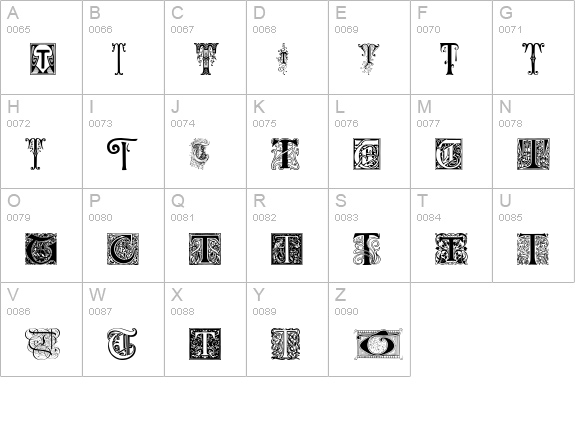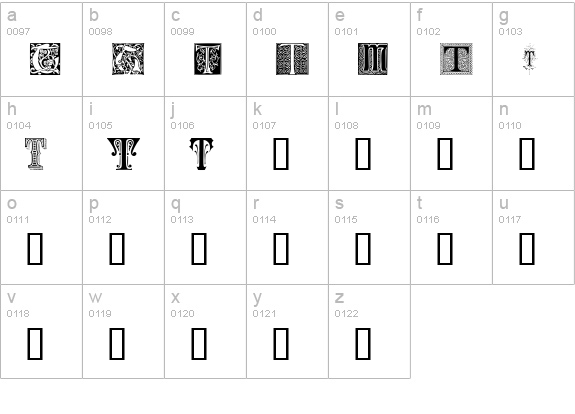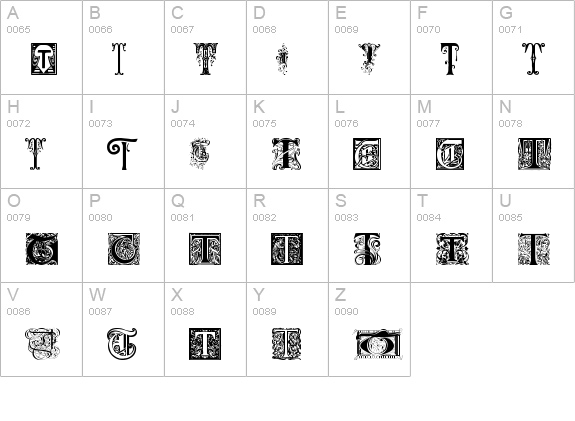
Ornamental Initials T font is a stunning typeface that exudes elegance and sophistication. With intricate details and ornate designs, this font is perfect for adding a touch of glamour to your projects. The elaborate initials make a bold statement and can elevate any design to new heights. Whether you're working on invitations, branding, or other creative projects, Ornamental Initials T font is sure to make a lasting impression. Best of all, Ornamental Initials T font is completely free to download at FontsMarket.com. This means you can access this beautiful typeface without any cost, making it an excellent choice for designers on a budget. Don't miss out on the opportunity to enhance your projects with the exquisite charm of Ornamental Initials T font – download it today and let your creativity shine!